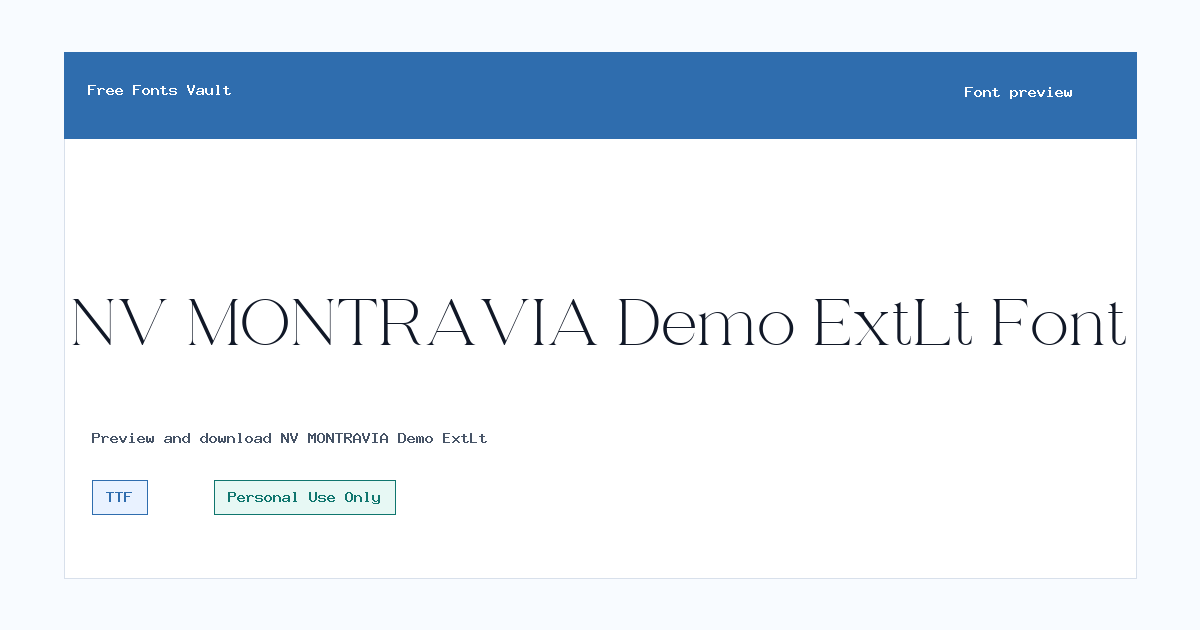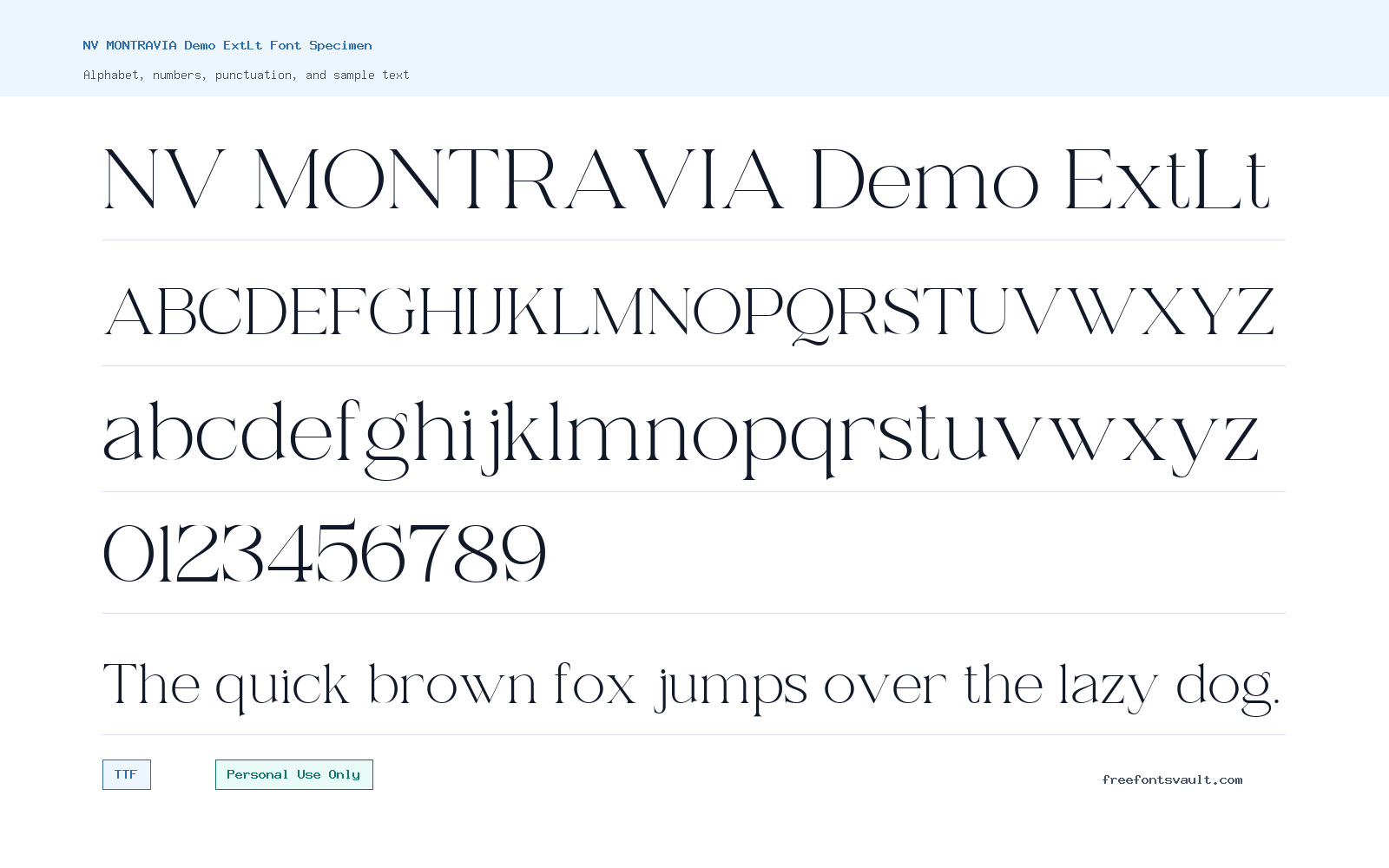
NV MONTRAVIA Demo ExtLt
NV MONTRAVIA Demo ExtLt font preview showing the family name
NV MONTRAVIA Demo ExtLt Font
NV MONTRAVIA Demo ExtLt font specimen showing alphabet, numbers, and sample text
NV MONTRAVIA Demo ExtLt font.
NV MONTRAVIA Demo ExtLt is a demo ExtraLight cut from the NV Montravia Serif Font Family by NovaraType. It is useful when you want a light, refined serif look for personal projects, early design testing, and polished visual mockups.
About NV MONTRAVIA Demo ExtLt
NV MONTRAVIA Demo ExtLt comes as a TrueType font file with a normal style and a light 300 weight. The “ExtLt” name points to an ExtraLight style, so it is best approached as a thin, airy display choice rather than a heavy text face. In a font preview, test it at larger sizes first: headings, name marks, short quotes, editorial titles, invitation lines, poster text, and elegant branding drafts are the places where a light serif can show its shape most clearly. Very thin strokes can lose strength when they are used too small, printed on rough paper, or placed over busy images, so short, spacious layouts will usually give this style the best chance to work.
For designers, this demo cut is most practical as a preview and concept tool. Try it for logo directions, mood boards, social graphics, web hero mockups, packaging studies, and poster compositions where the typography needs to feel calm and controlled. Because the weight is light, give the letters enough contrast against the background and avoid crowding the line spacing. If you use it for web mockups, check the font at desktop and mobile sizes before settling on a layout; thin serifs can look elegant in a large hero title but become fragile in navigation, captions, or long body copy. For longer reading sections, pair it with a simpler, more robust text font and keep NV MONTRAVIA Demo ExtLt for titles or accents.
In logo work, preview the letters that matter most before making a decision. A light serif can look sharp in a wordmark, but it may need extra spacing and careful contrast to stay readable. Test all caps, title case, and lowercase if the project allows it. For posters and social images, use larger text blocks and keep backgrounds simple. For editorial-style layouts, combine it with a neutral sans serif for dates, captions, buttons, or supporting copy. A restrained pairing will keep the ExtraLight style from being overpowered while still making the page easy to read.
• ExtraLight-style 300 weight suited to titles, short display text, and refined mockups
• Normal font style in a regular variant
• Demo font associated with the NV Montravia Serif Font Family
• Best used with generous spacing and strong background contrast
• Personal logo concepts and wordmark experiments
• Poster titles and elegant event graphics
• Editorial-style headings and magazine-inspired layouts
• Web hero mockups and landing-page concept screens
• Mood boards, packaging studies, and non-commercial brand explorations
• Short quotes, invitations, and decorative title treatments
The designer and foundry are listed as NovaraType.
What does the ExtLt style mean?
ExtLt usually refers to ExtraLight. In this case, the font weight is listed as 300, so it should be tested as a light-weight display style rather than a heavy text font.
Is this font good for body text?
It is better suited to short display text, headings, and visual accents. For paragraphs or long reading sections, pair it with a more readable text font.
What should I pair it with?
Use a clean sans serif or a sturdy text serif for supporting copy. Keep NV MONTRAVIA Demo ExtLt for titles, names, and short lines so the light style remains clear.